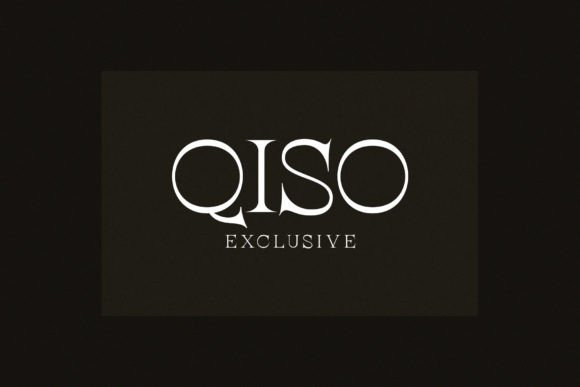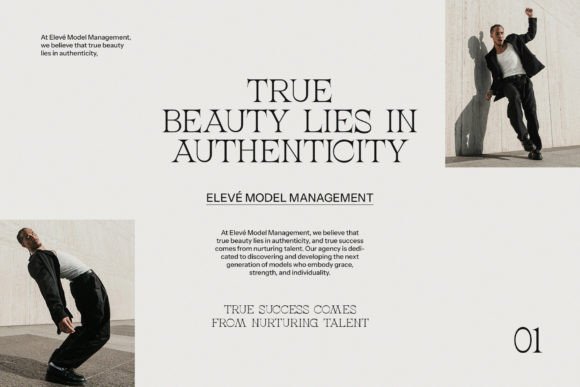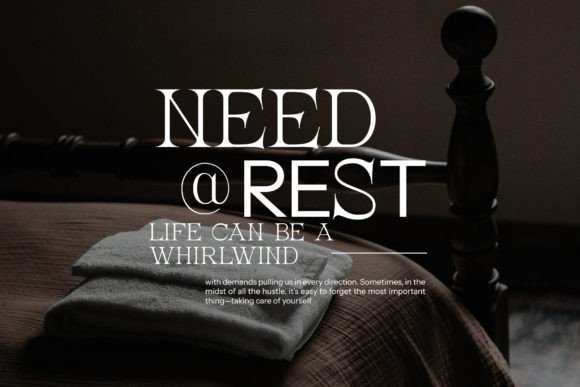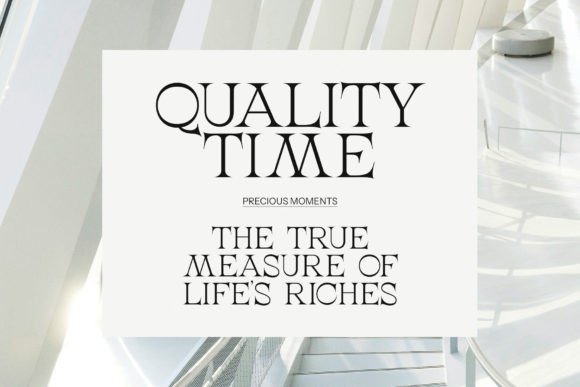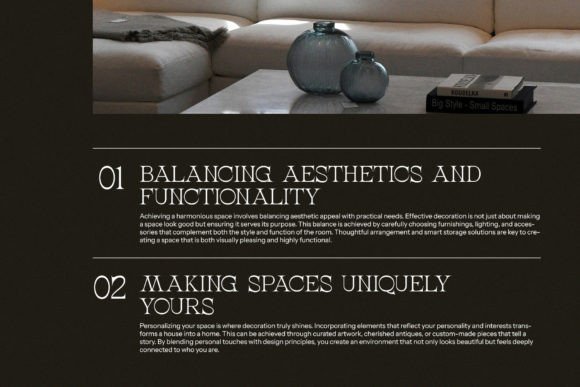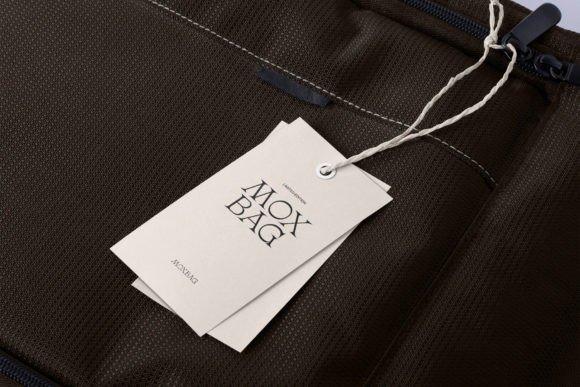
Introduction to Mogist Font
As a designer, there’s nothing quite like the rush of creating a beautiful piece of work that captures the essence of your vision. You’ve spent hours pouring over design decisions, carefully crafting every detail to bring your creative project to life. And then, it happens – the perfect font comes along and takes your design to the next level. For many designers, that font is the Mogist Font.
This stunning serif font is a game-changer for any design project. With its clean and stylish look, the Mogist Font is perfect for creating classy designs that exude sophistication and refinement. Whether you’re working on an invitation, logo, or title, the Mogist Font is sure to elevate your design and make it stand out from the crowd.
Key Features of Mogist Font
- Unique characteristics include elegant and modern designs, making it perfect for creative projects such as branding, logos, and typography.
Honest Review: Mogist Font
I recently had the chance to work with the Mogist Font, and I must say it’s a high-quality design resource that can elevate any creative project. The font’s clean and modern design makes it perfect for a variety of uses, from logos to typography-heavy designs.
However, there are a few limitations to keep in mind. The font doesn’t come with a lot of character variations, which might be a drawback for designers who like to experiment with different styles.
Overall, I’d say the Mogist Font is a great addition to any designer’s toolkit. While it has some limitations, its high-quality design and transparent background make it a valuable resource for creative projects.
The Mogist Font is ideal for creative projects that require a high-quality, unique font. Common use cases include:
- Presentation designs
- Document headers and footers
Alternatives to Mogist Font
Open Sans is a popular sans-serif font suitable for a wide range of design projects, including logos, brochures, and websites. It’s free to download and comes with a transparent background, making it easy to use in various design scenarios. Open Sans is a great choice for creative projects that require a clean and modern look.
Comparison to Mogist Font: Open Sans has a more neutral tone and is often used in corporate designs, whereas Mogist Font has a more playful and creative vibe.
Lato is a modern sans-serif font that works well for titles, headings, and body text. It’s available for free download and features a transparent background, making it easy to use in various design scenarios. Lato is a great choice for creative projects that require a high-quality and stylish font.